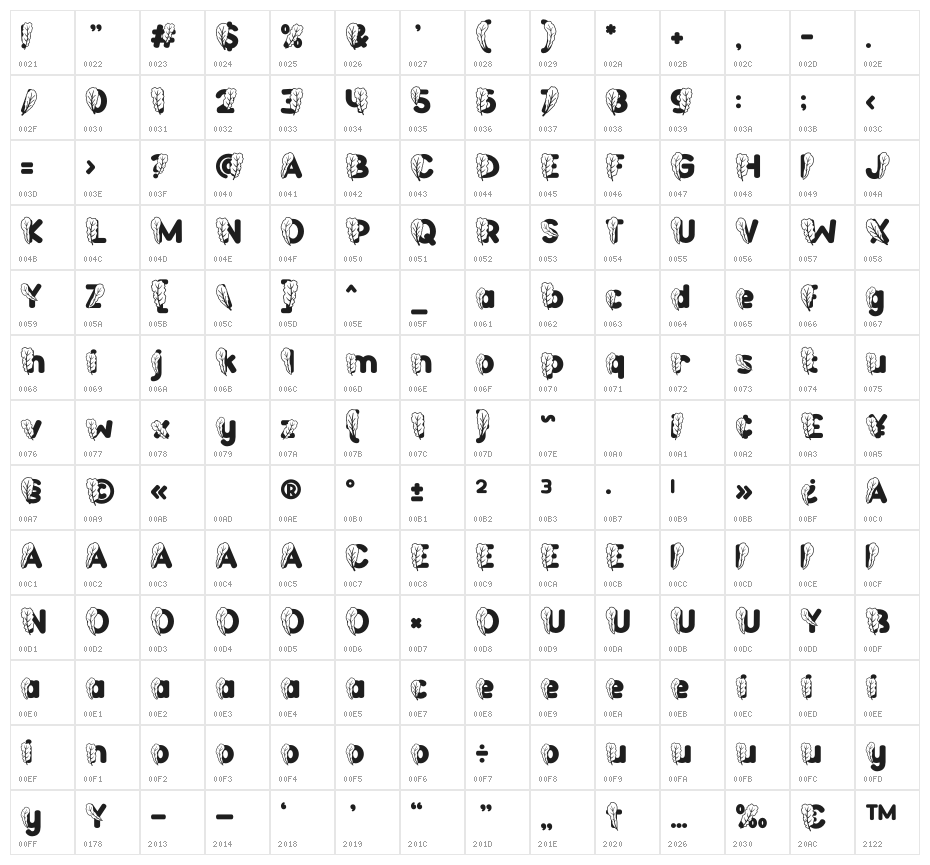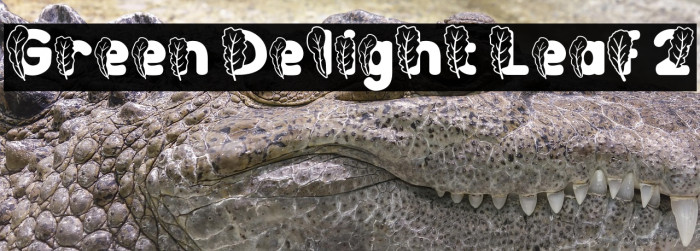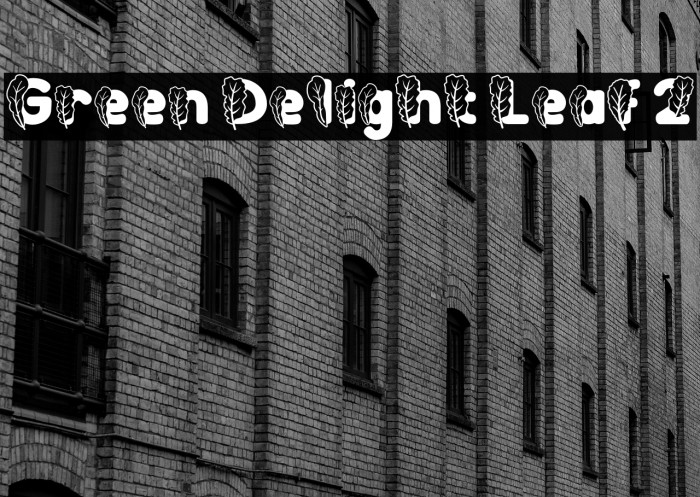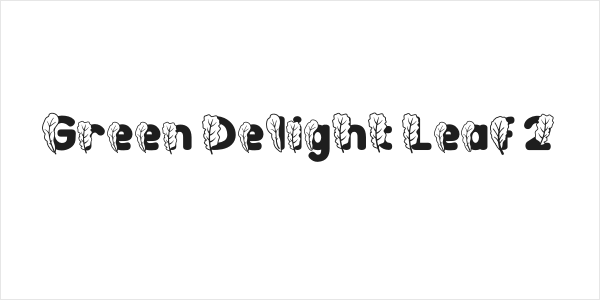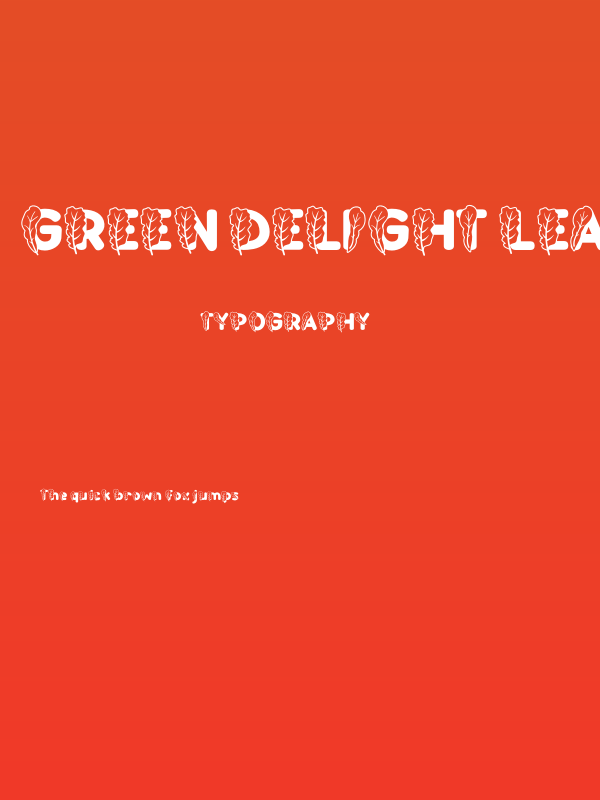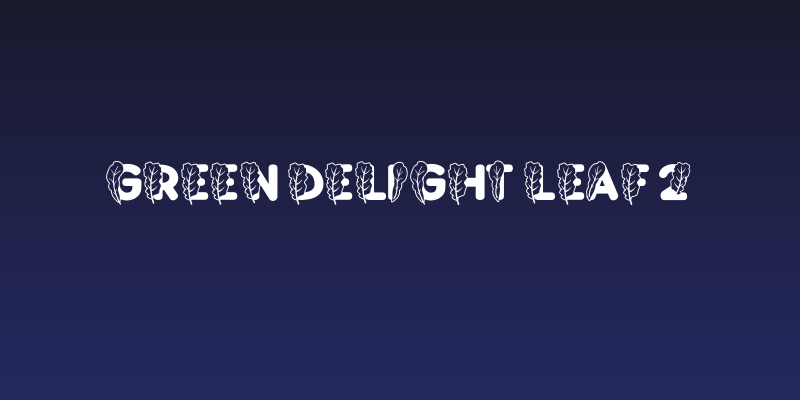
Green Delight Leaf 2 Font
Green Delight Leaf 2 Description
This playful and decorative font features characters designed to resemble leaves, giving it a natural and organic feel. Each letter is creatively integrated with leaf motifs, making it ideal for projects that require a touch of nature or environmental themes. The bold and artistic style of the font makes it stand out, while the intricate leaf details add a unique charm. The font maintains a consistent weight throughout, with medium contrast in stroke thickness, ensuring readability while preserving its decorative appeal.
| Proposed Projects | Ideal for eco-friendly branding, nature-themed posters, children's books, and environmental campaigns. |